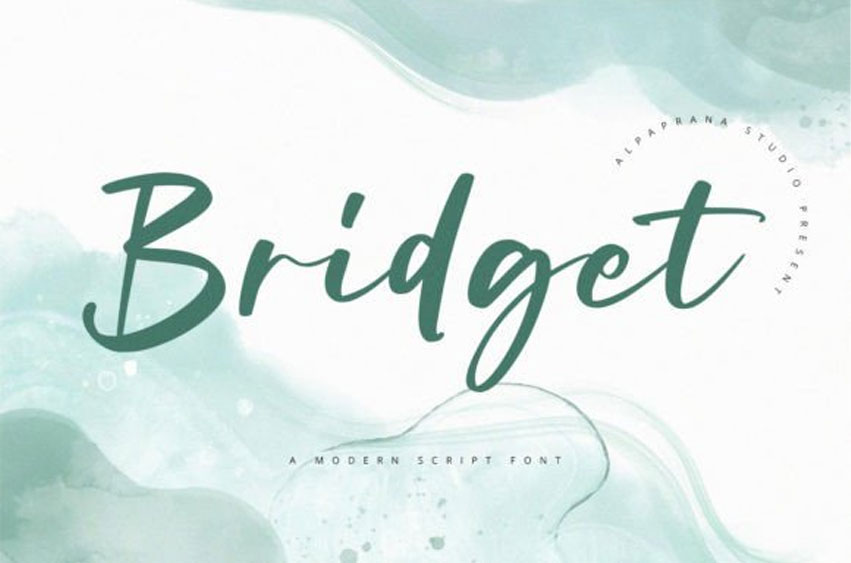
Bridget Font is a modern script font with natural and classic feels.
It’s perfectly suitable for branding, logo design, lettering, logotype, clothing, posters, magazines, packaging, posters, shopping bags, t-shirts, book covers, photography, special events, and more.